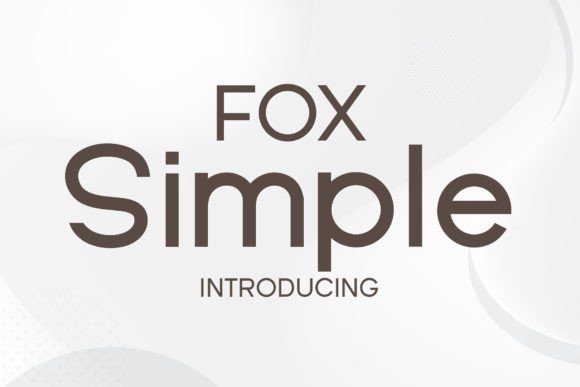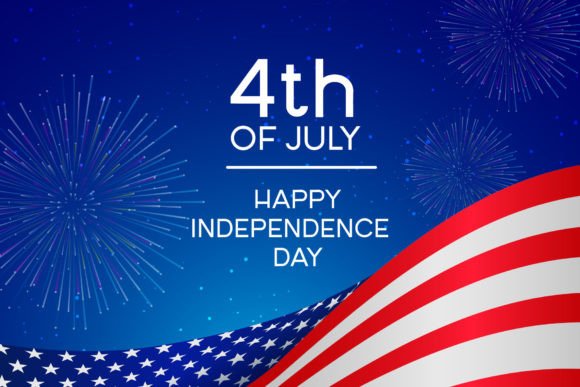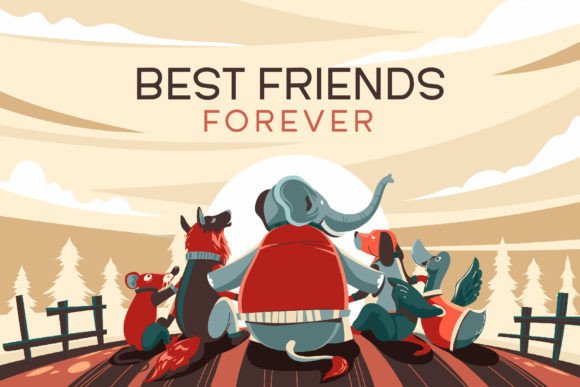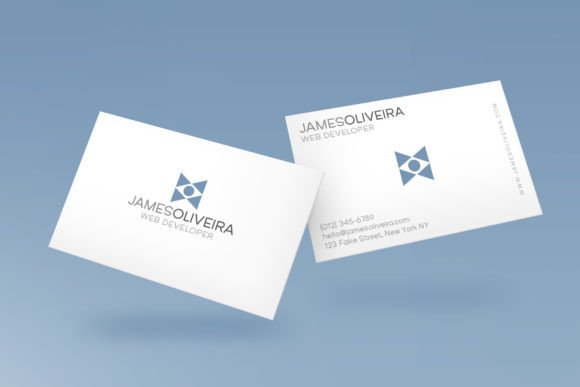
Fox Simple Font: Modern Sans Serif for Clean Logo Design & Branding
About the Fox Simple Font
From logos to headlines, the Fox Simple Font is the perfect choice for making a lasting impression. Fox Simple is a subtle and simple sans serif font well with a wide range of other fonts. Whether you’re designing a logo, a website, or a print project, Fox Simple Font will elevate your work with its effortless style and sophistication. so add it to your creative ideas, and notice how it makes them stand out!
Fox Simple’s clean lines and subtle details make it ideal for headlines, logos, and short-form text in branding materials and packaging. Its understated elegance works well in minimalist designs and projects requiring a sophisticated yet approachable feel. Avoid using it for large bodies of text or UI elements where readability over long paragraphs is crucial.
Pairing Fox Simple with a classic serif like Garamond for a touch of traditional sophistication, or a geometric sans-serif like Futura for a modern, clean aesthetic, will create a strong visual hierarchy and balanced design. A playful script font could add a contrasting element for invitations or branding that requires a touch of personality.
The overall personality of Fox Simple is modern and minimalist with a hint of sophistication. It’s best suited for brands that value clean aesthetics, understated elegance, and a sense of timeless quality.